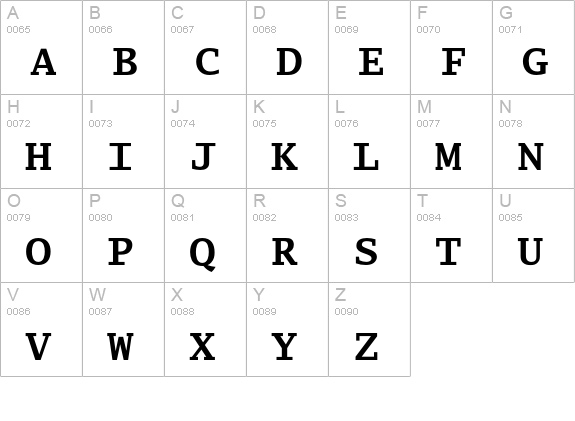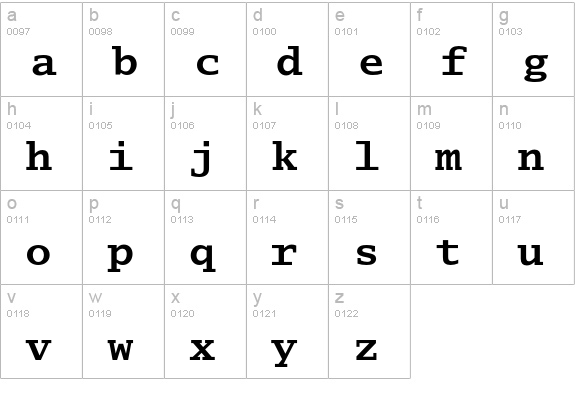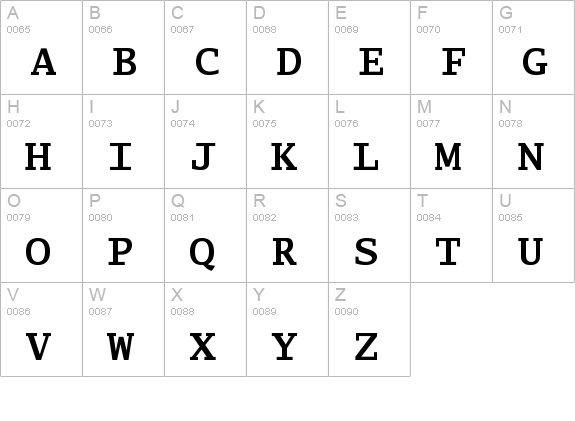
LucidaTypewriterEF-Bold Font Details
LucidaTypewriterEF-Bold is a strong, high-contrast variant in the LucidaTypewriterEF typeface family \xE2\x80\x94 well suited to headlines, attention-grabbing titles, and strong calls-to-action.
LucidaTypewriterEF-Bold is a classic and versatile font that exudes a sense of professionalism and reliability. Its bold weight makes it perfect for creating eye-catching titles and headings that demand attention. The clean lines and distinct characters of LucidaTypewriterEF-Bold give any project a polished and sophisticated look. What sets LucidaTypewriterEF-Bold apart is that it is available for free download at FontsMarket.com. This means that you can easily access this high-quality font without any cost, making it a valuable resource for designers, writers, and creatives looking to enhance their work with a timeless and elegant typeface. With its timeless appeal and professional aesthetic, LucidaTypewriterEF-Bold is a must-have font for anyone looking to make a bold statement in their design projects.